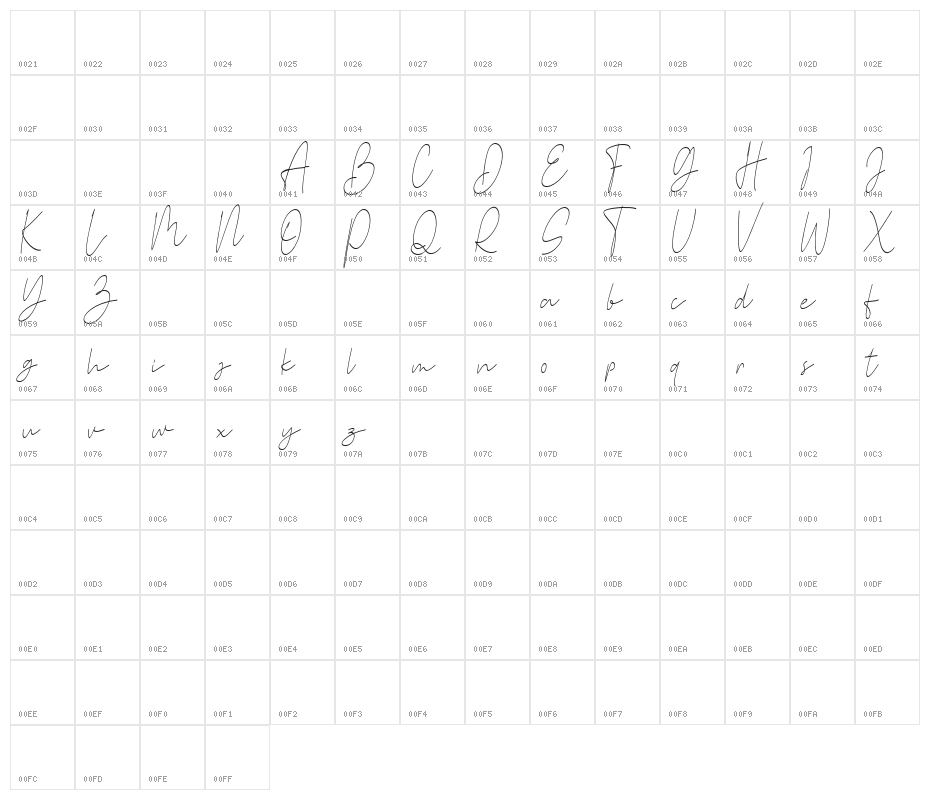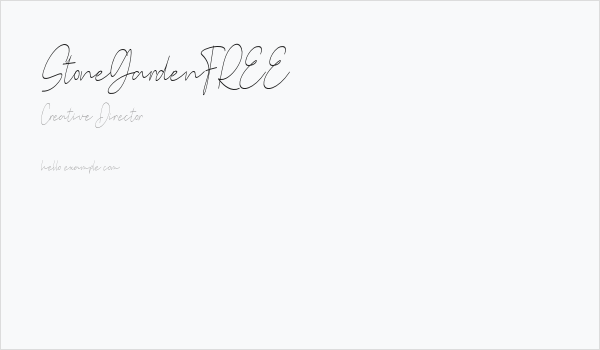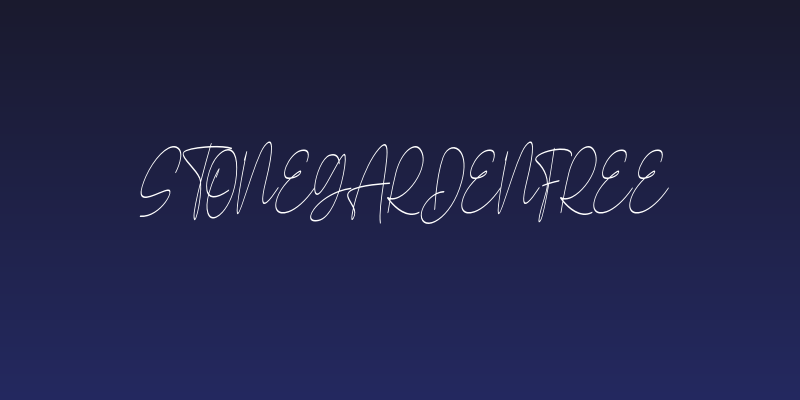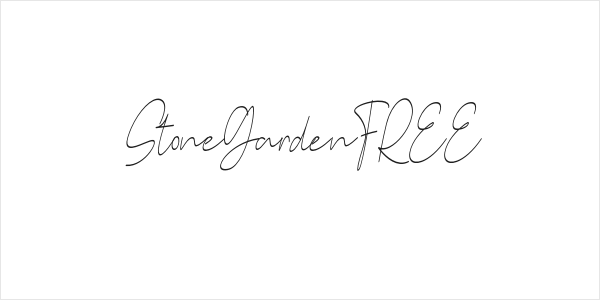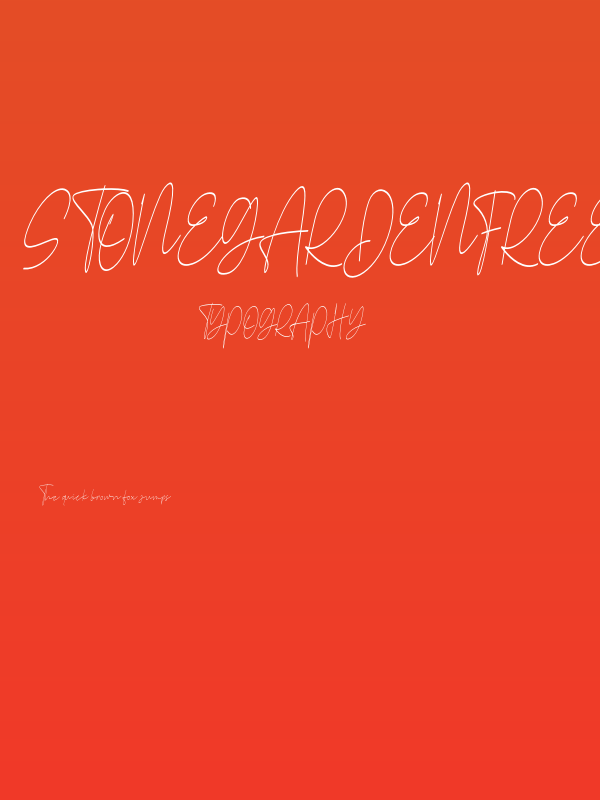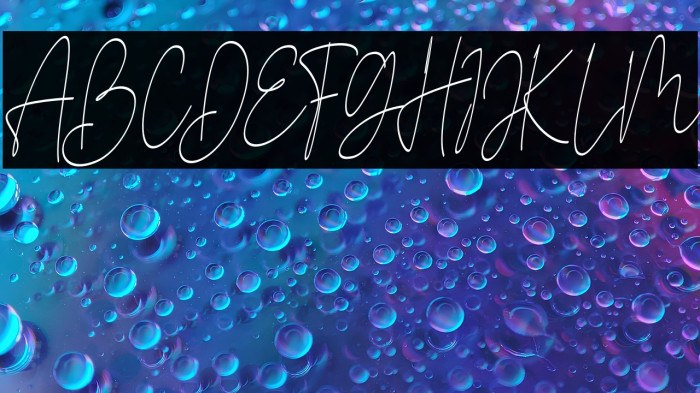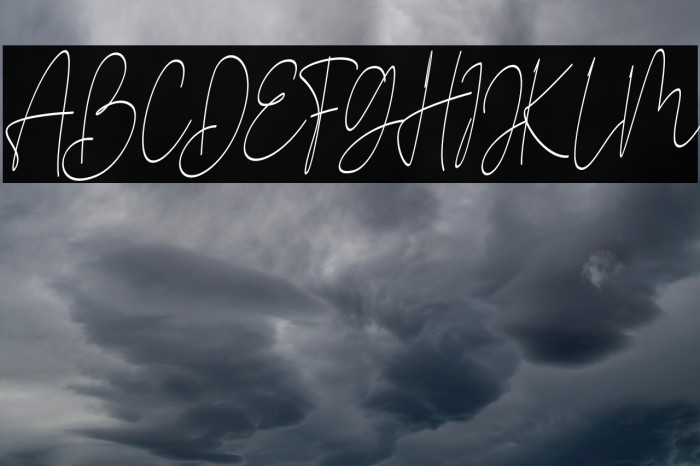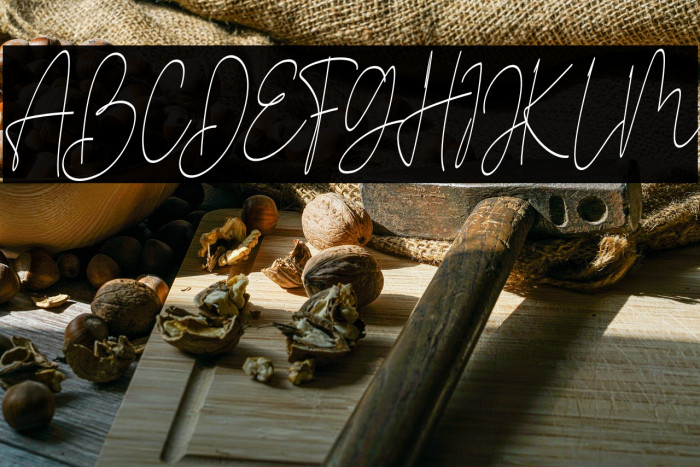
StoneGardenFREE Font
StoneGardenFREE Description
This font features a flowing, cursive style with a handwritten appearance. The letters are connected with smooth, elegant strokes that give it a personal and artistic touch. The uppercase letters are tall and slender, while the lowercase letters maintain a consistent flow, enhancing the script-like quality. The overall design is airy and light, with a sense of movement and grace. It is suitable for projects that require a touch of elegance and sophistication, such as invitations, greeting cards, and personal branding.
| Overall Style | Elegant, Artistic |
| Proposed Projects | Ideal for wedding invitations, personal branding, greeting cards, and artistic projects. |